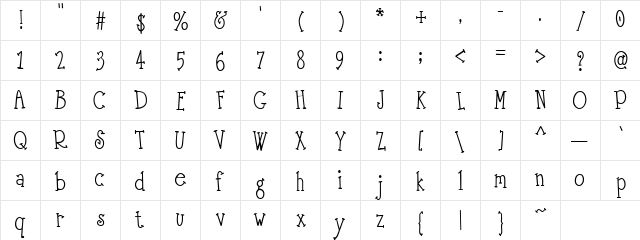
Scrap Serif Regular
Design Context for Scrap Serif Typeface
Scrap Serif carries the refined structure of traditional serif typography, with bracketed terminals and considered proportions that communicate credibility and craft.
Pro Tip: Set Scrap Serif with slightly loose tracking in headlines to let each letterform's detail read clearly at display sizes.